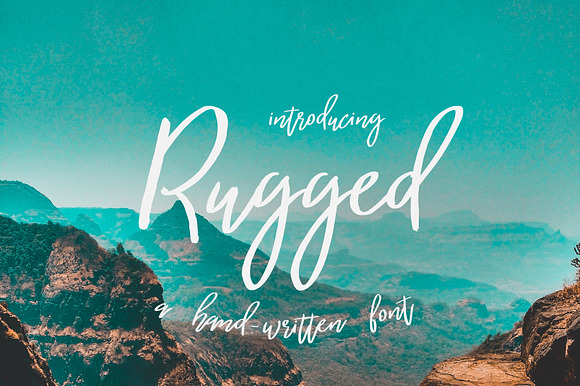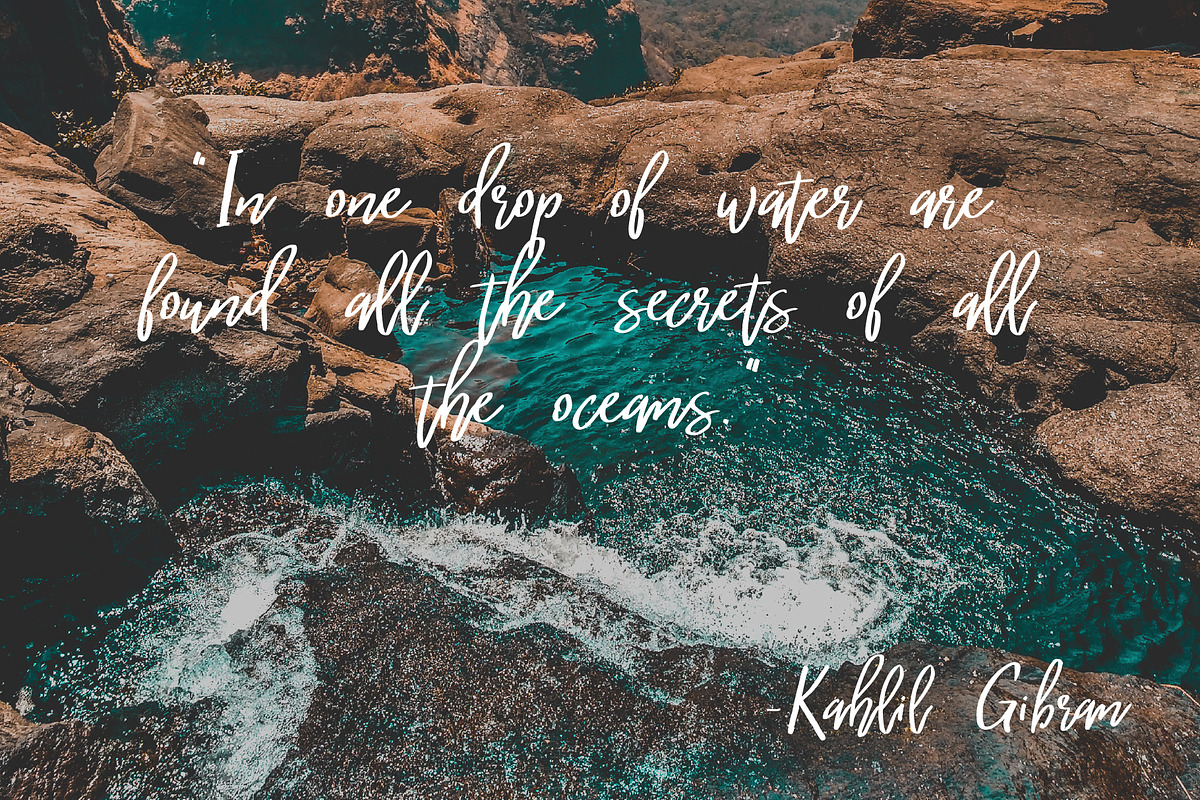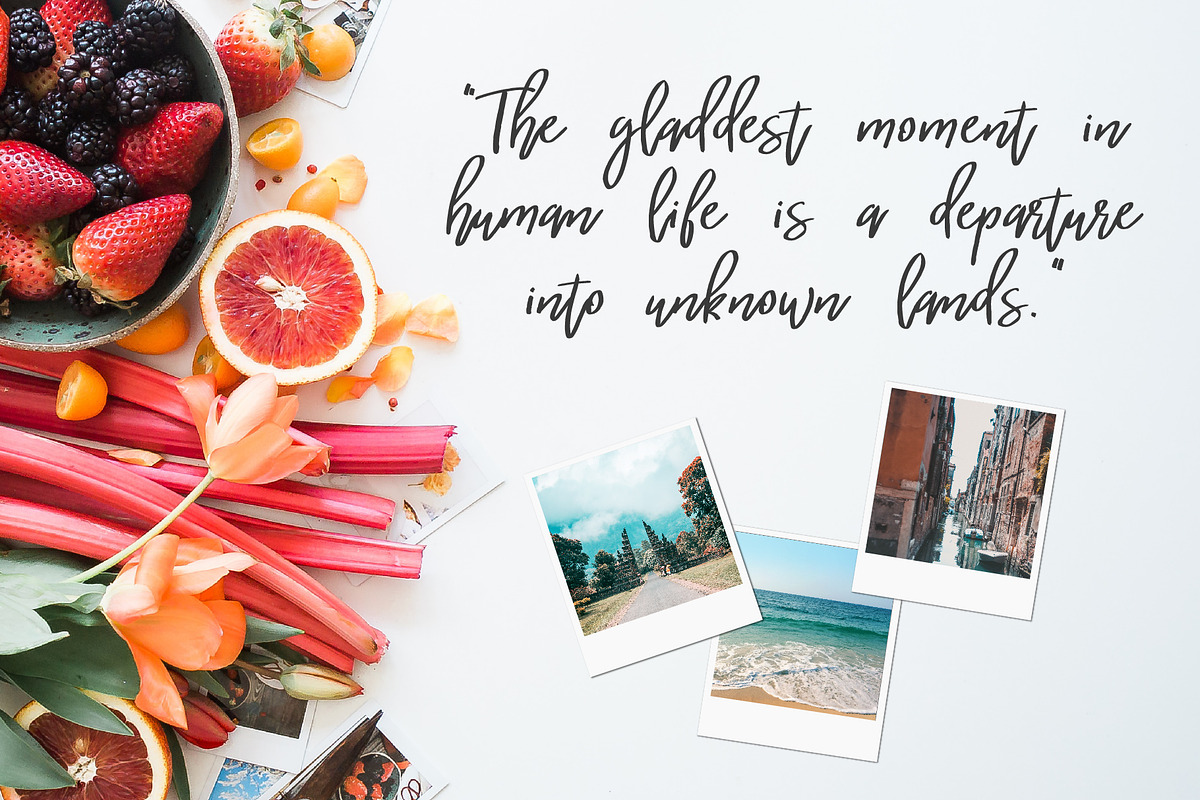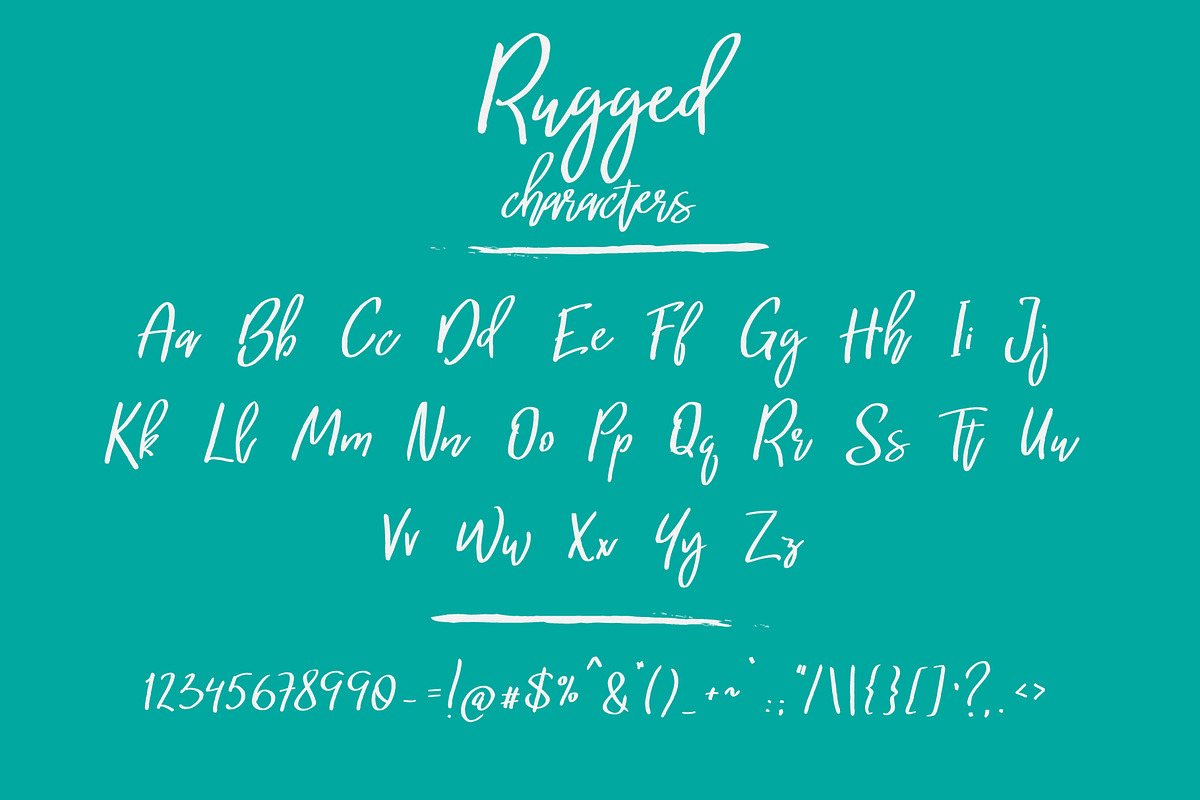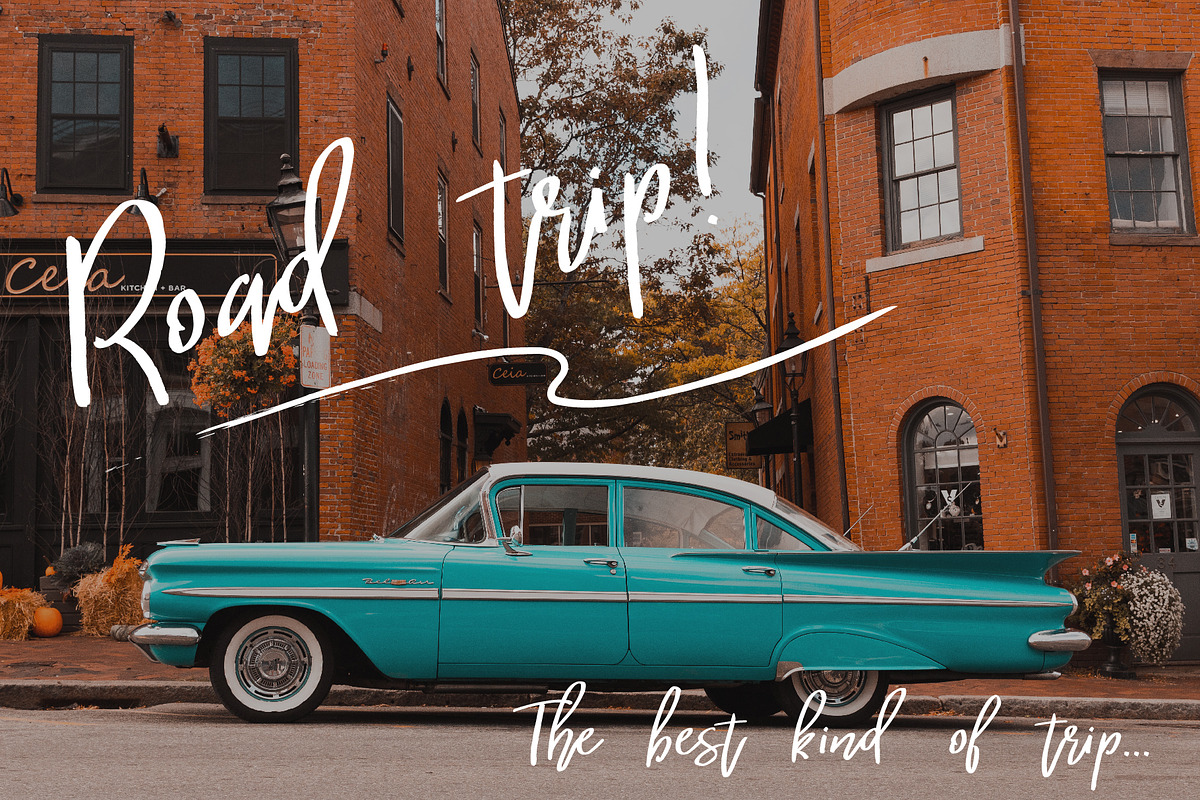
Rugged | a hand-written font
Hello everyone! I am pleased to introduce my product - Rugged font. This is a handwritten font. And this font is well suited for titles, quotes, phrases, signatures and branding. Also it would look great in logos, invitations, labels, heading and posters. You don't need any additional programs to use this font. Just install the font and enjoy!
Rugged | a hand-written font by Wander Designs fits naturally into Branding, posters, packaging, typography.